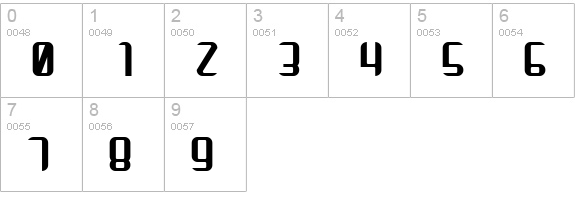
Arbeka Bold Font Details
Arbeka Bold is a strong, high-contrast variant in the Arbeka typeface family \xE2\x80\x94 well suited to headlines, attention-grabbing titles, and strong calls-to-action.
Arbeka Bold is a striking and versatile font that exudes confidence and modernity. With its bold and sharp letterforms, Arbeka Bold commands attention while maintaining a sense of elegance and sophistication. This typeface is perfect for making a bold statement in headlines, logos, posters, and other creative projects. The best part? Arbeka Bold is available for free download at FontsMarket.com. Now you can elevate your designs with this eye-catching font without breaking the bank. Don't miss out on this opportunity to add Arbeka Bold to your font collection and take your projects to the next level. Download it today and let your creativity shine with Arbeka Bold!